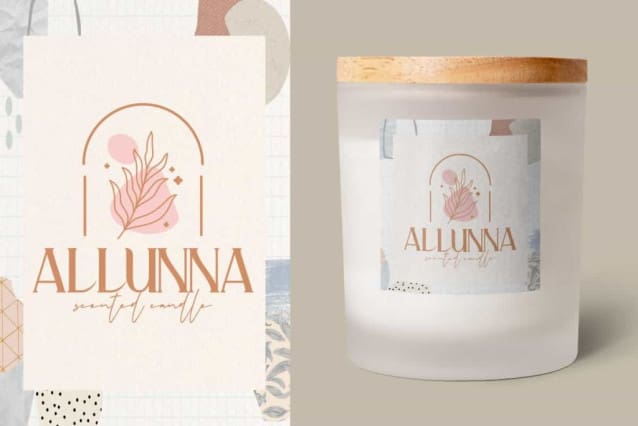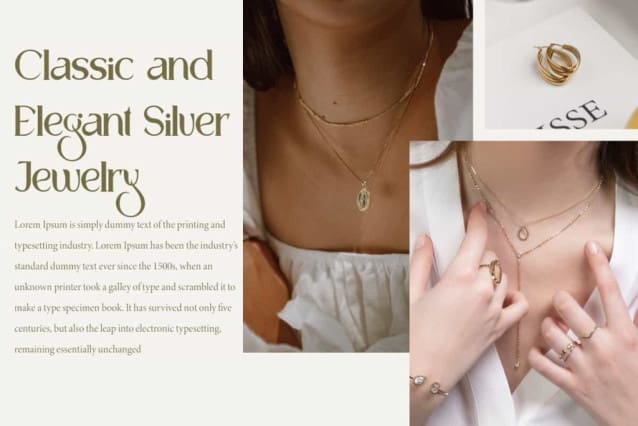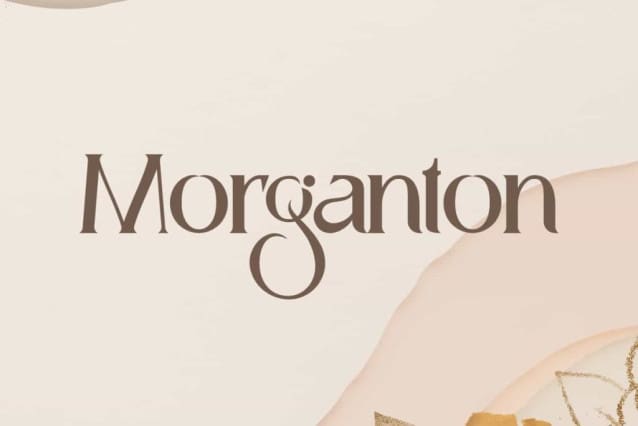
Morganton Font
Morganton Font is a fancy exclusive serif display font in elegant style. This font has strong characters with a beautiful shape to give an elegant looks. It will suits many designs, such as billboard, body text, cover, custom design, gift box, invitation, label, product packaging, quote, screen printing, signage, stationery, title, website, and more!
Morganton Font includes full set of Uppercase and Lowercase Basic Characters, Numerals, Punctuation, and Symbol. This font is perfect for you who looking for stunning font, so it will be suitable for many industries, such as accessories and jewelry, advertising, beauty product, craft, event or wedding organizer, fashion, florist, home furniture, perfume, resort, restaurant, etc.